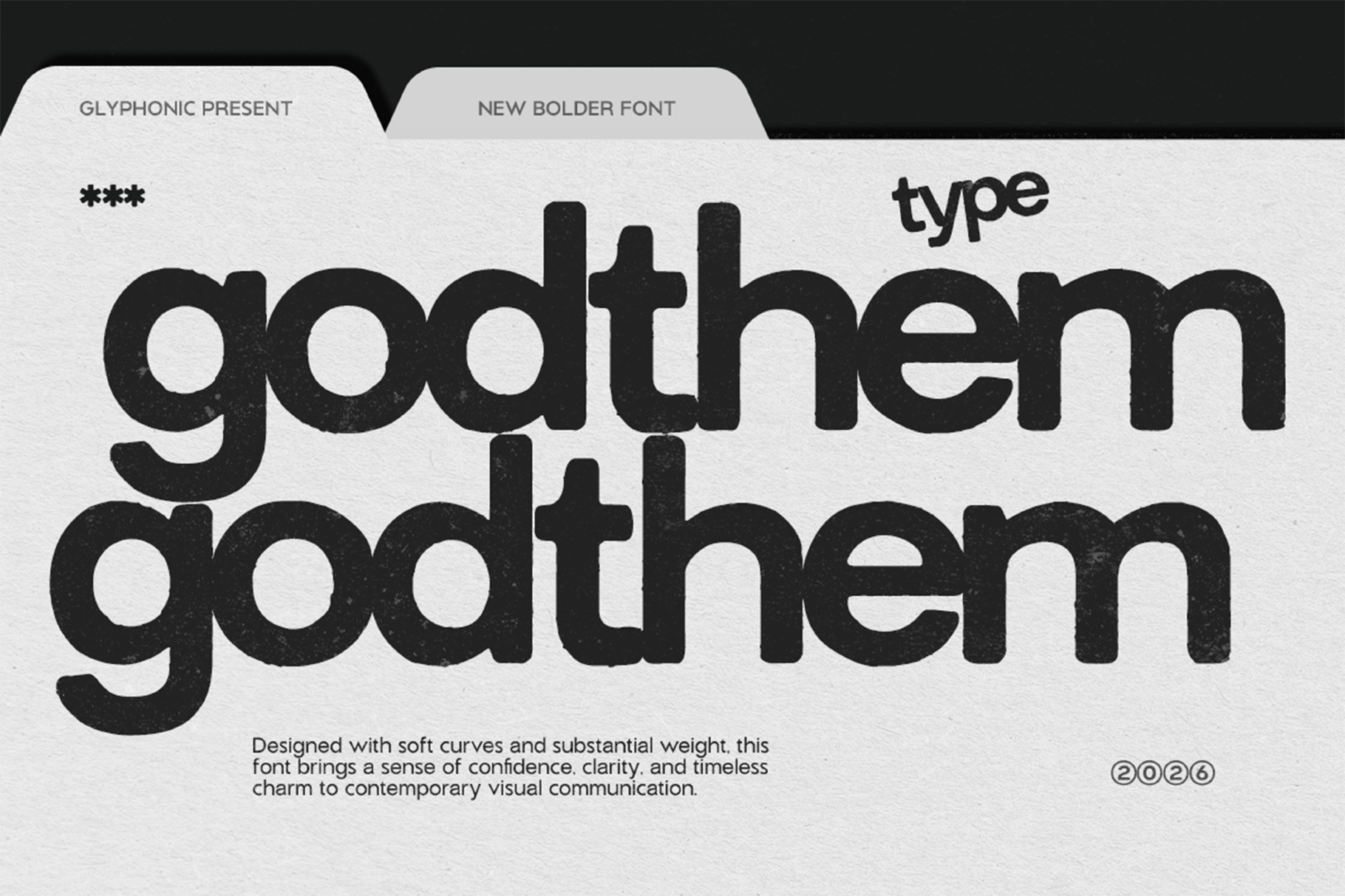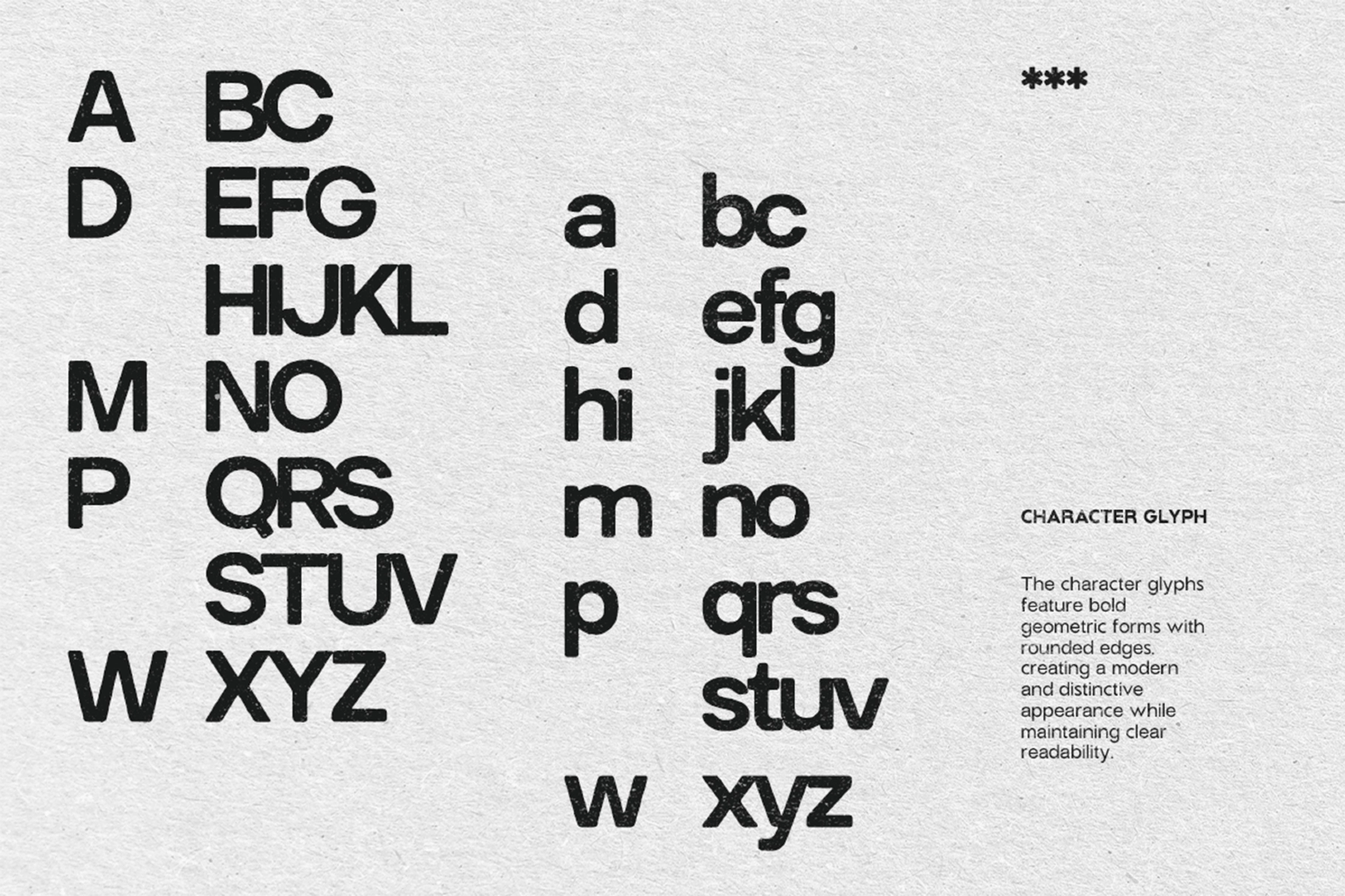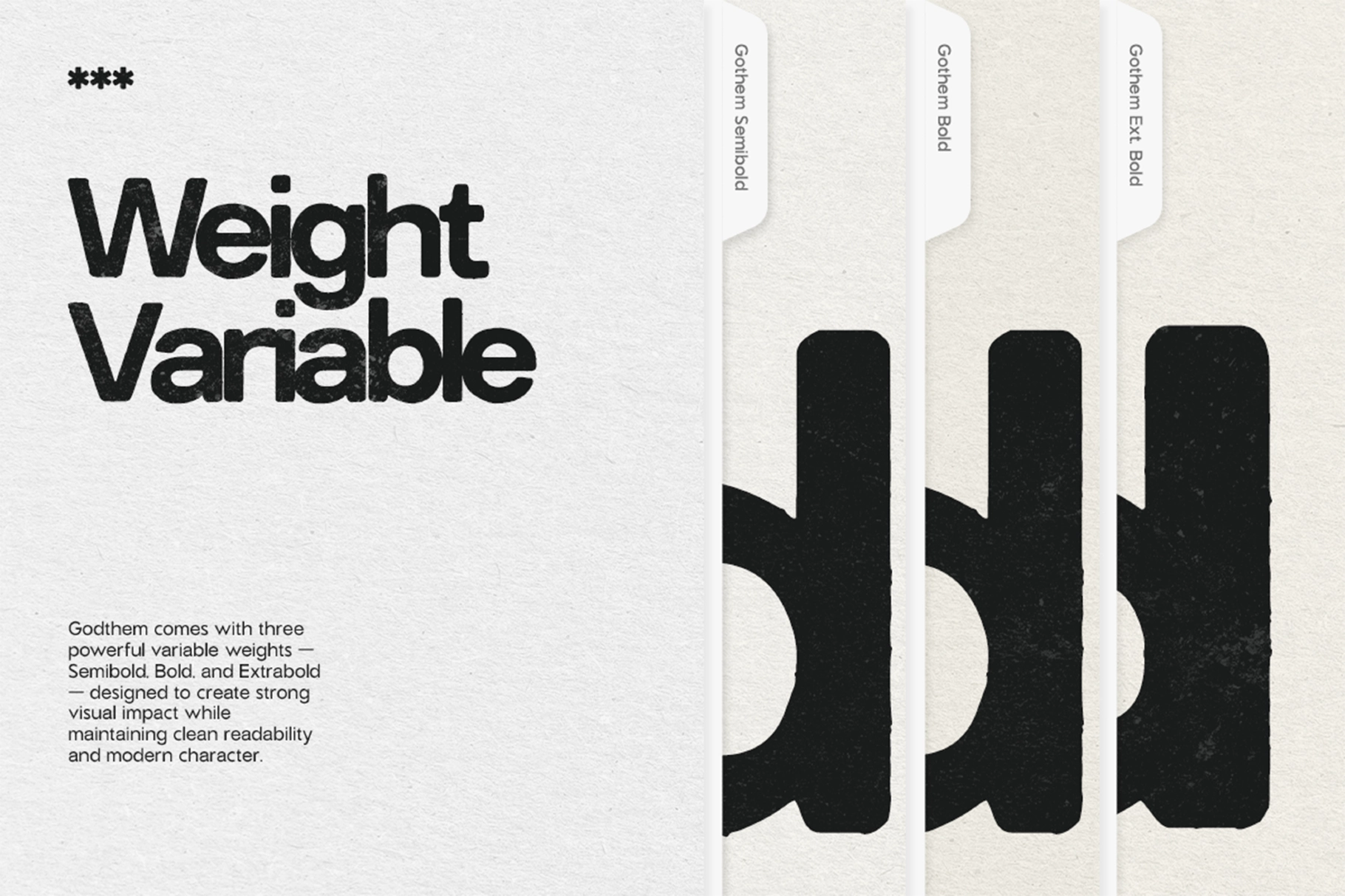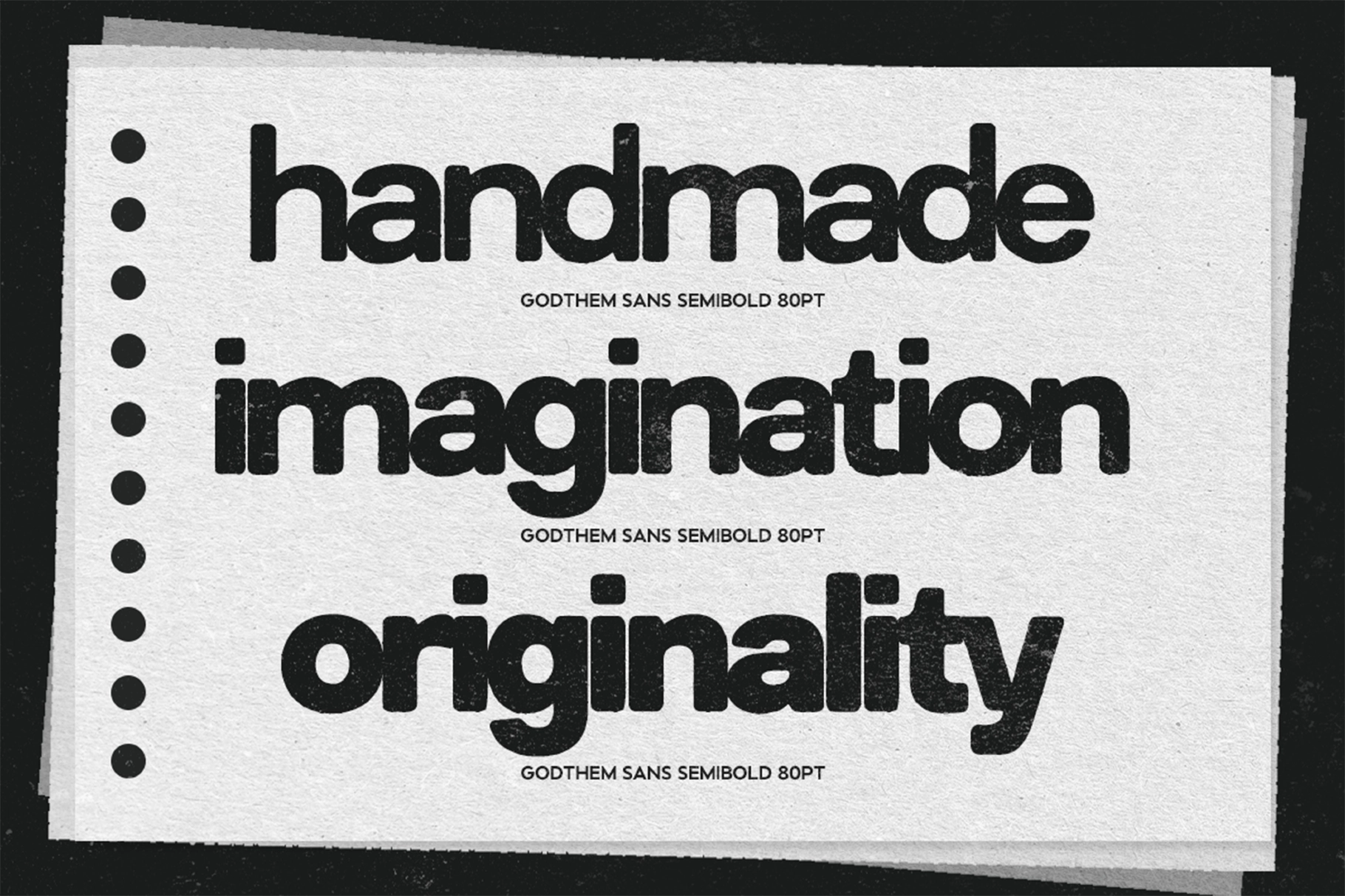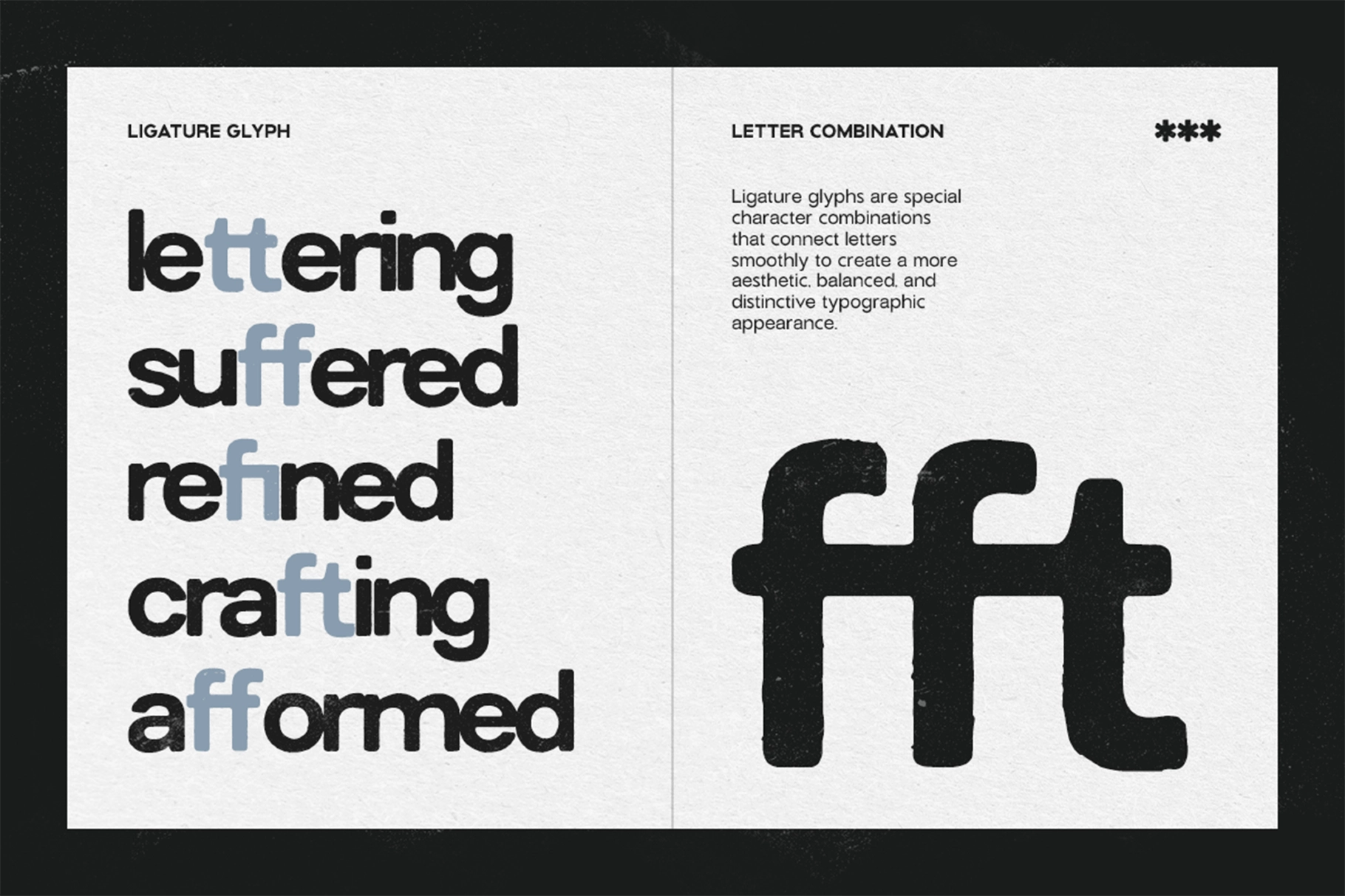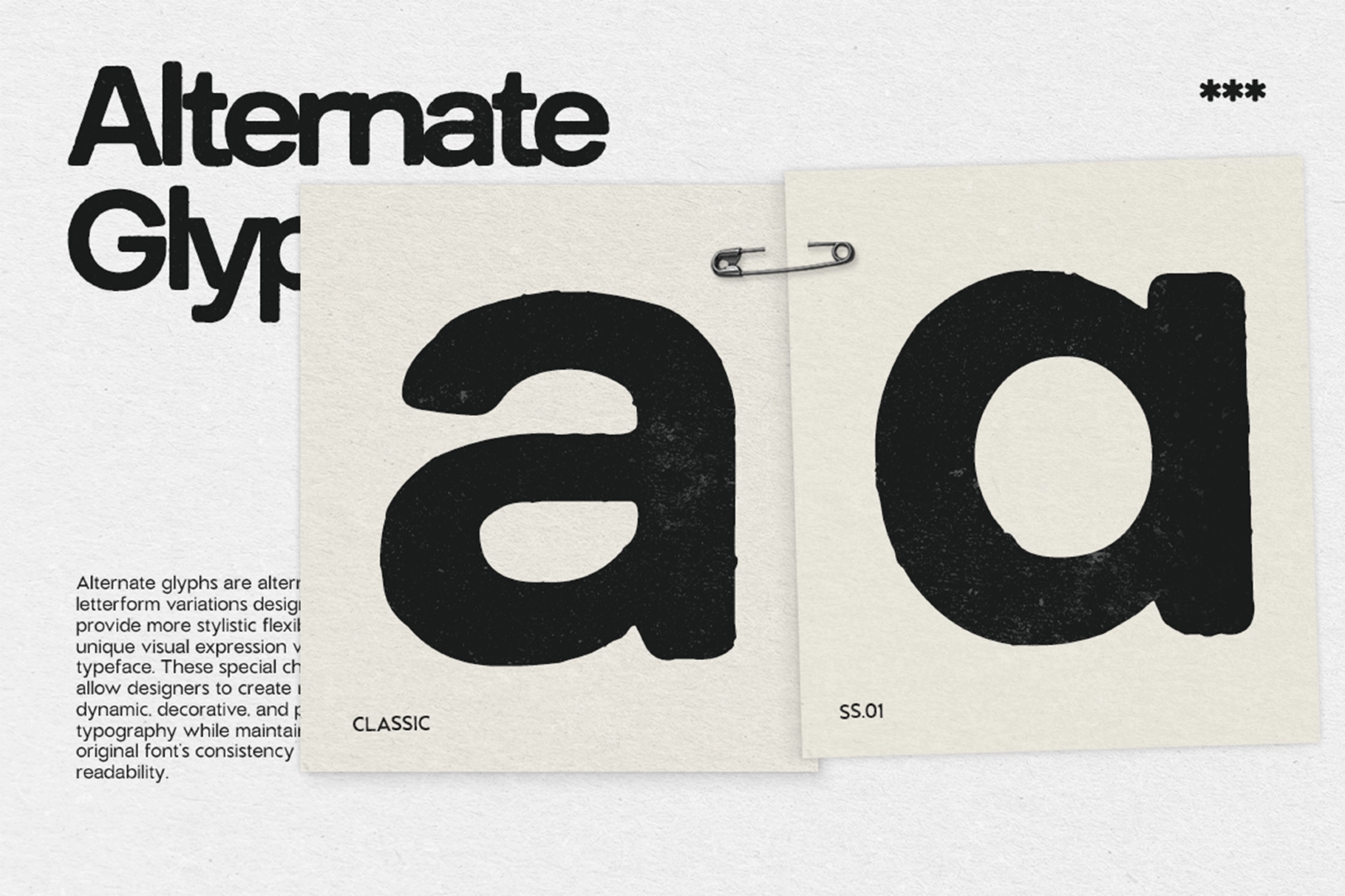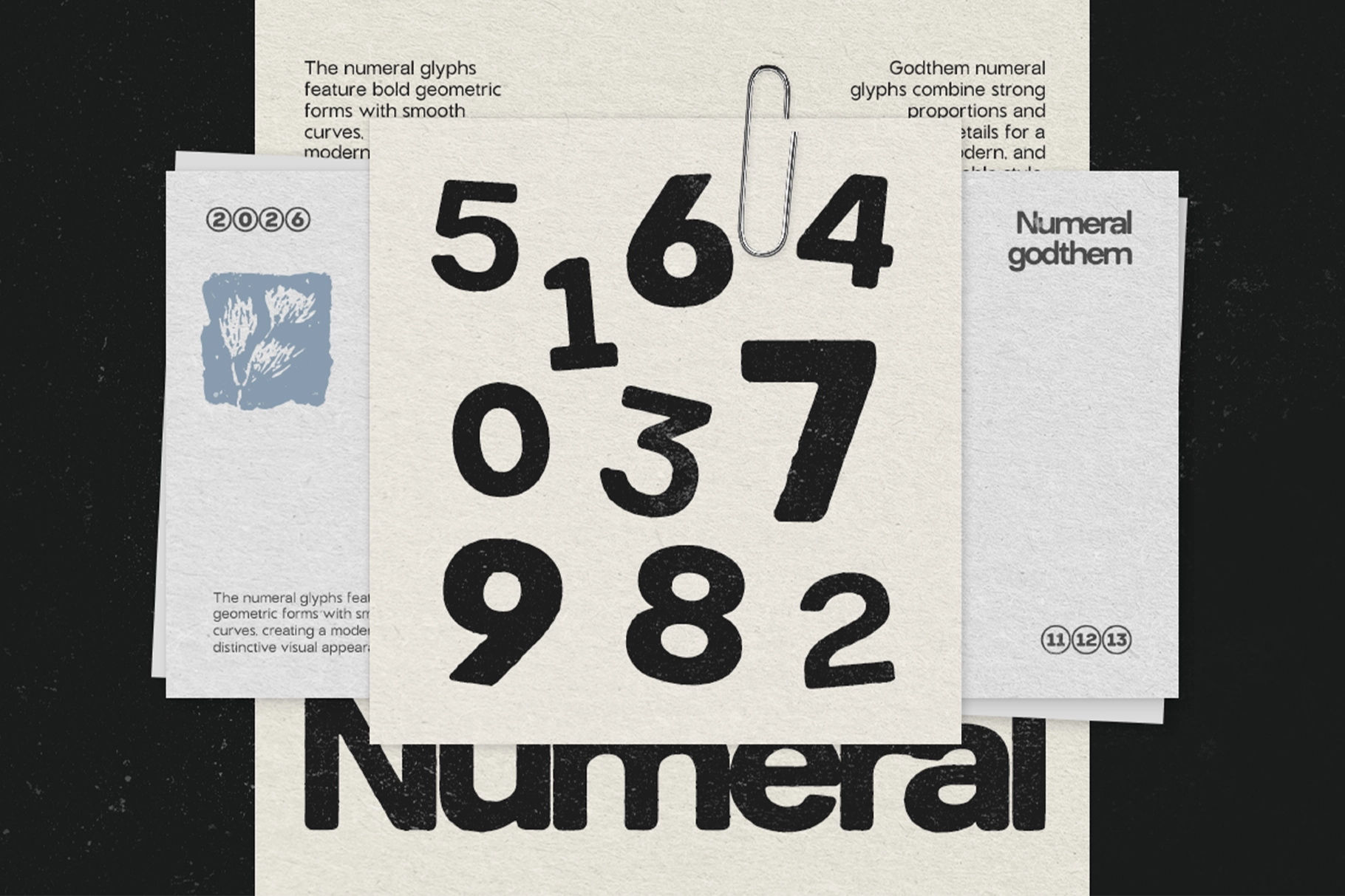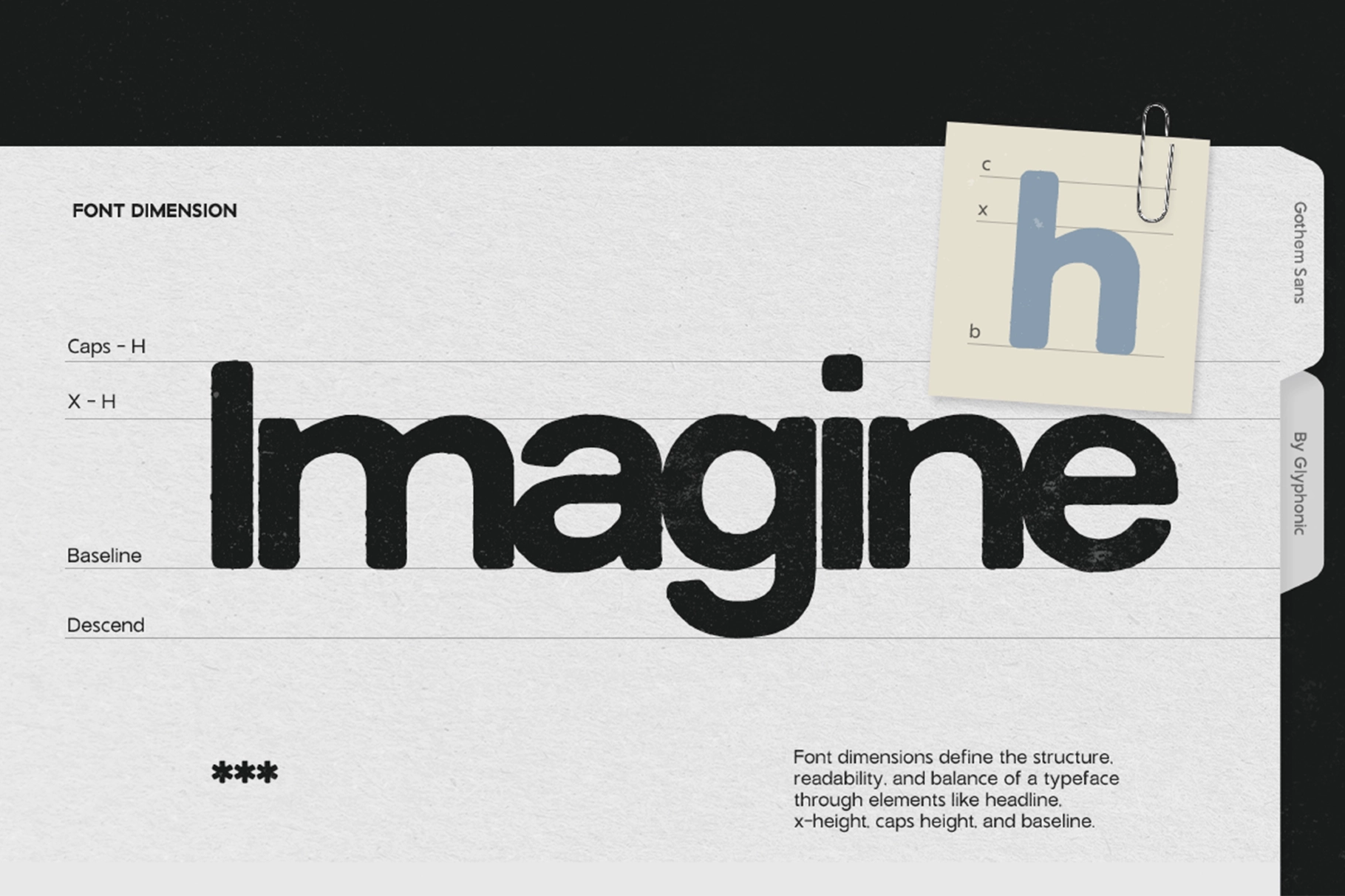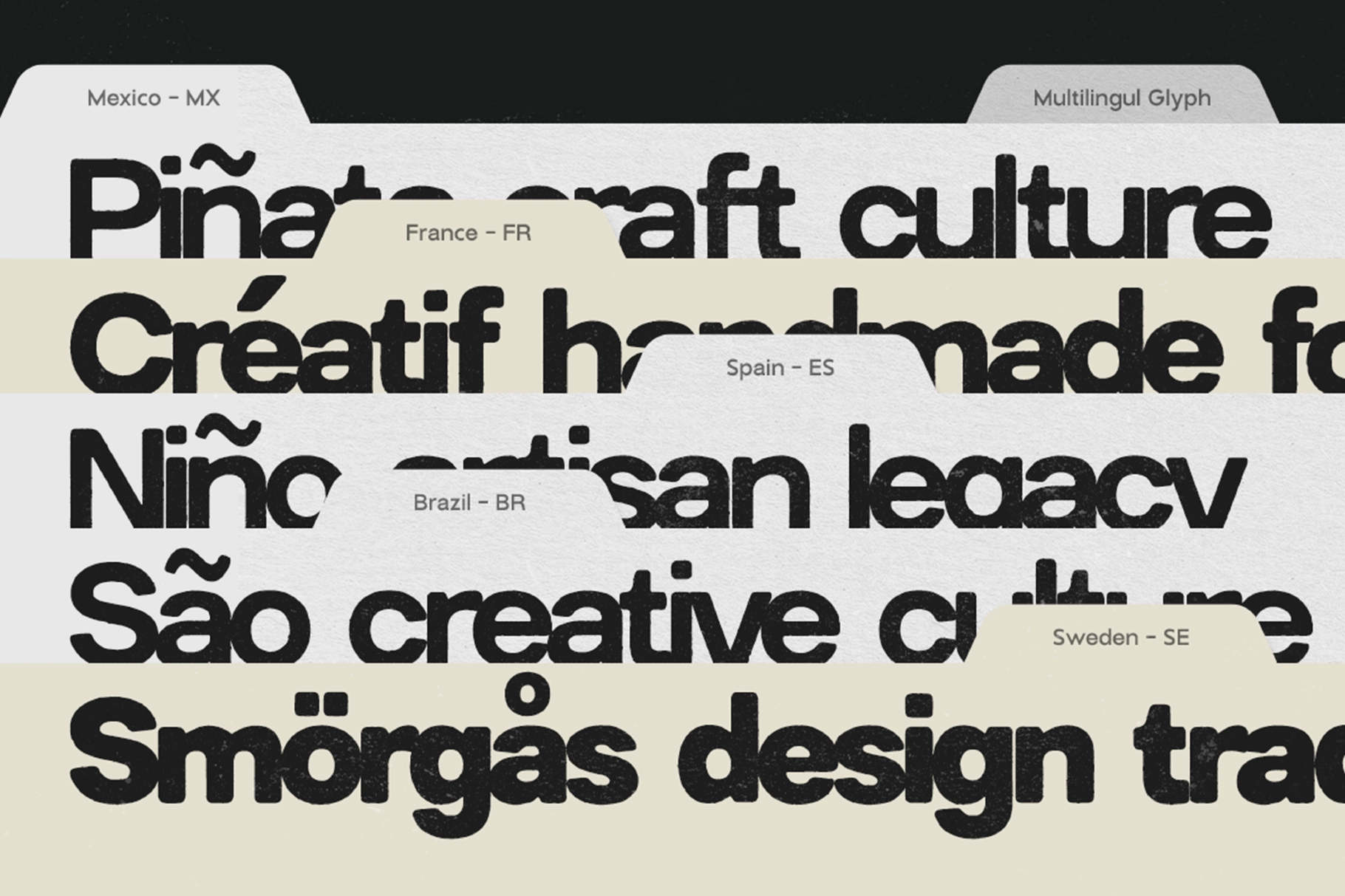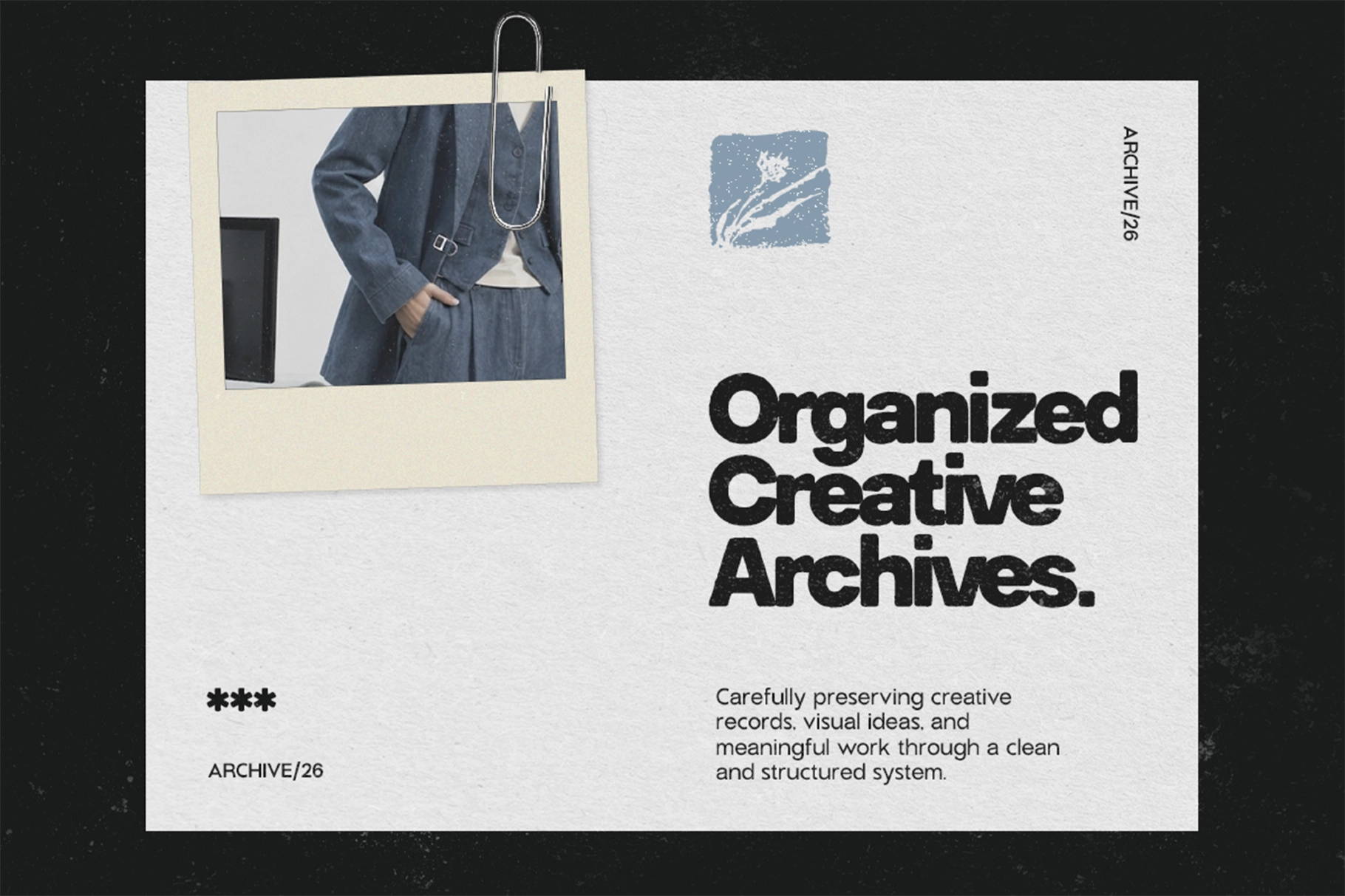
GC Godthem - Display Grunge Sans Font
This grunge sans serif font is thick, loud, and worn at the edges, with rounded forms that look printed, copied, and dragged through a basement venue wall in the best possible way. The bold structure keeps it readable, while the distressed texture gives headlines a raw, handmade bite.
Godthem works well for streetwear branding, gig posters, album covers, zines, skate graphics, underground event flyers, gaming titles, merch, editorial headlines, social media campaigns, packaging, stickers, and alternative brand identities. The variable weight axis gives designers flexible control for hierarchy, from compact supporting text to heavy display typography with plenty of grit.
• Variable Font
• Distressed & Textured Letterforms
• Multilingual support for 170+ languages